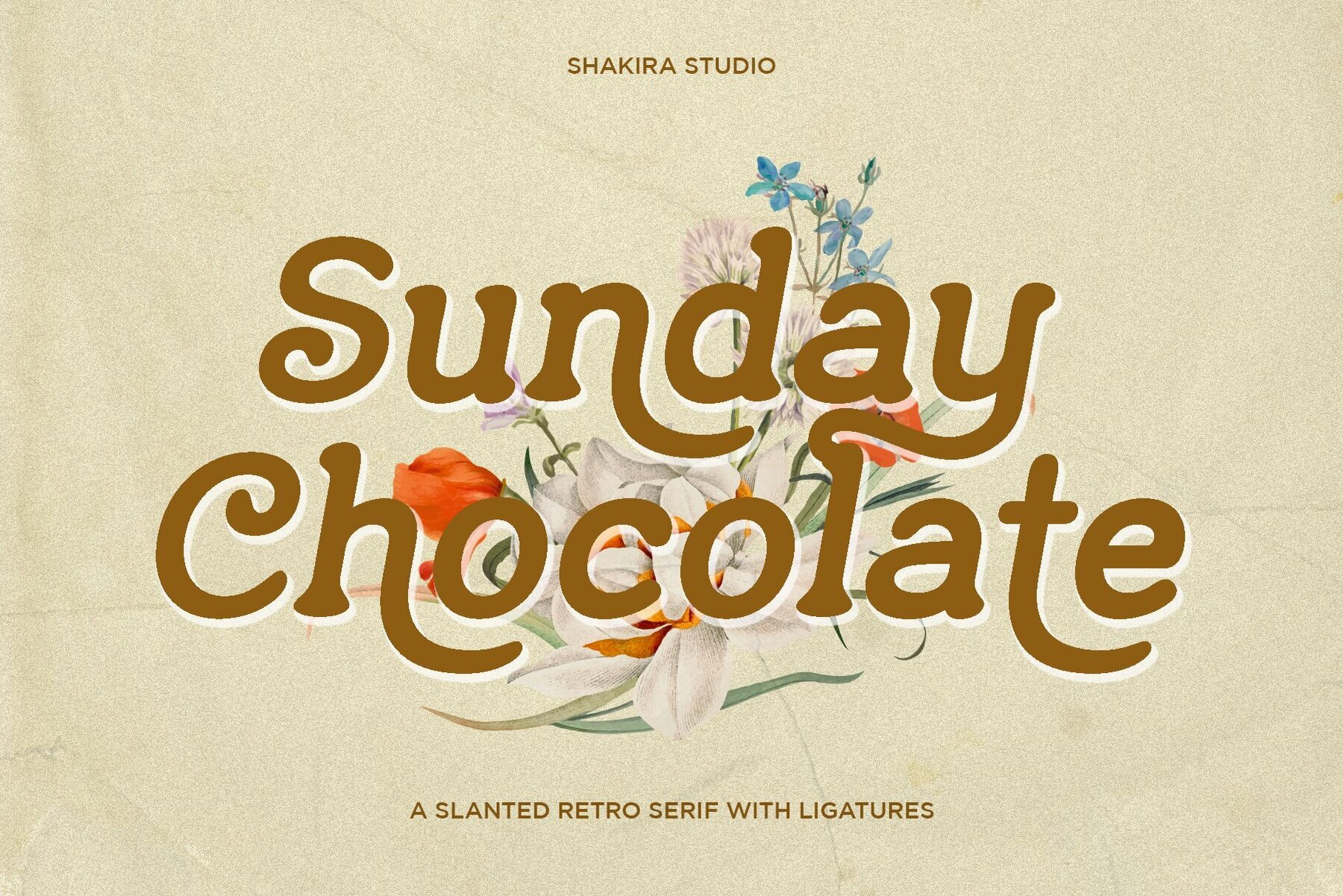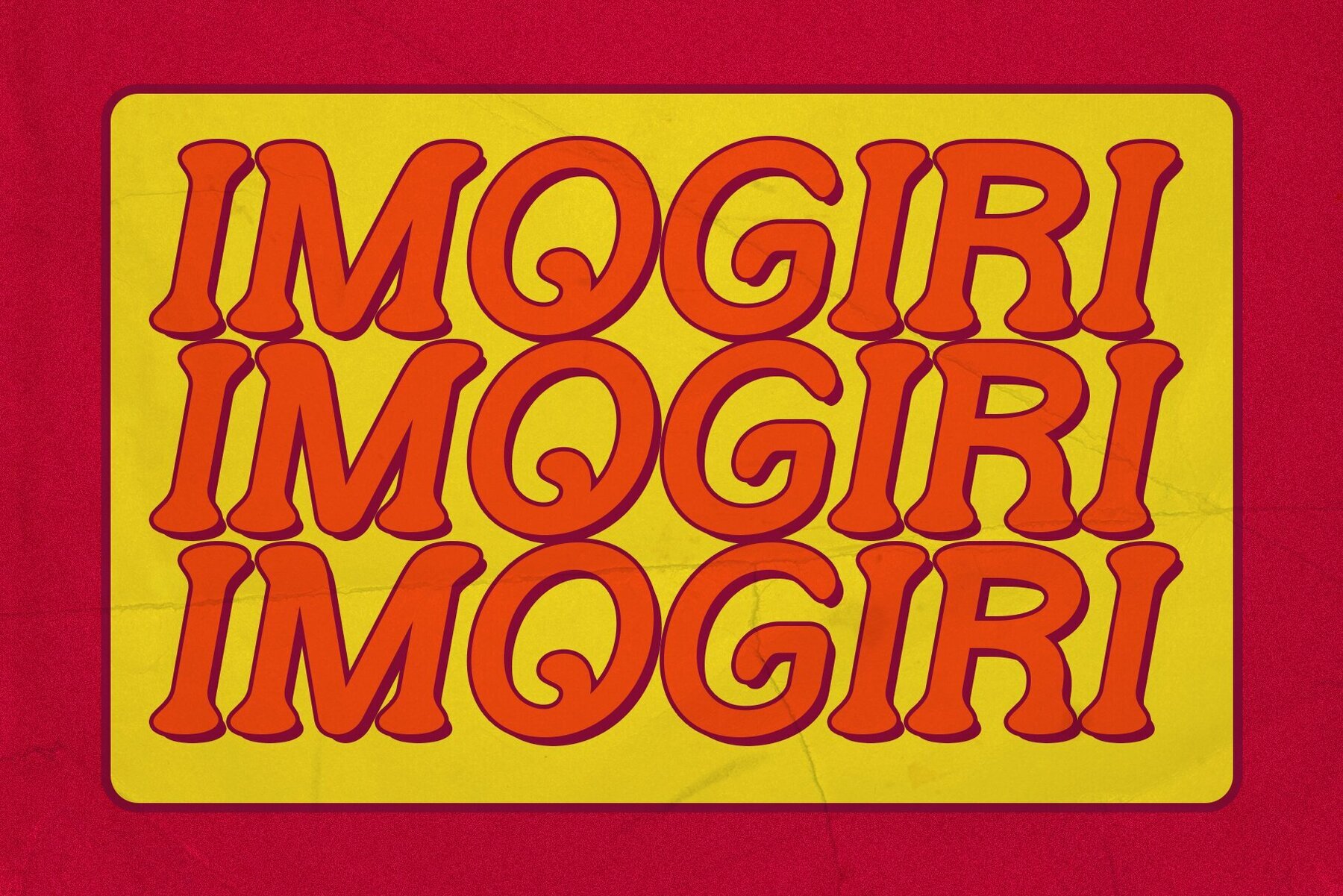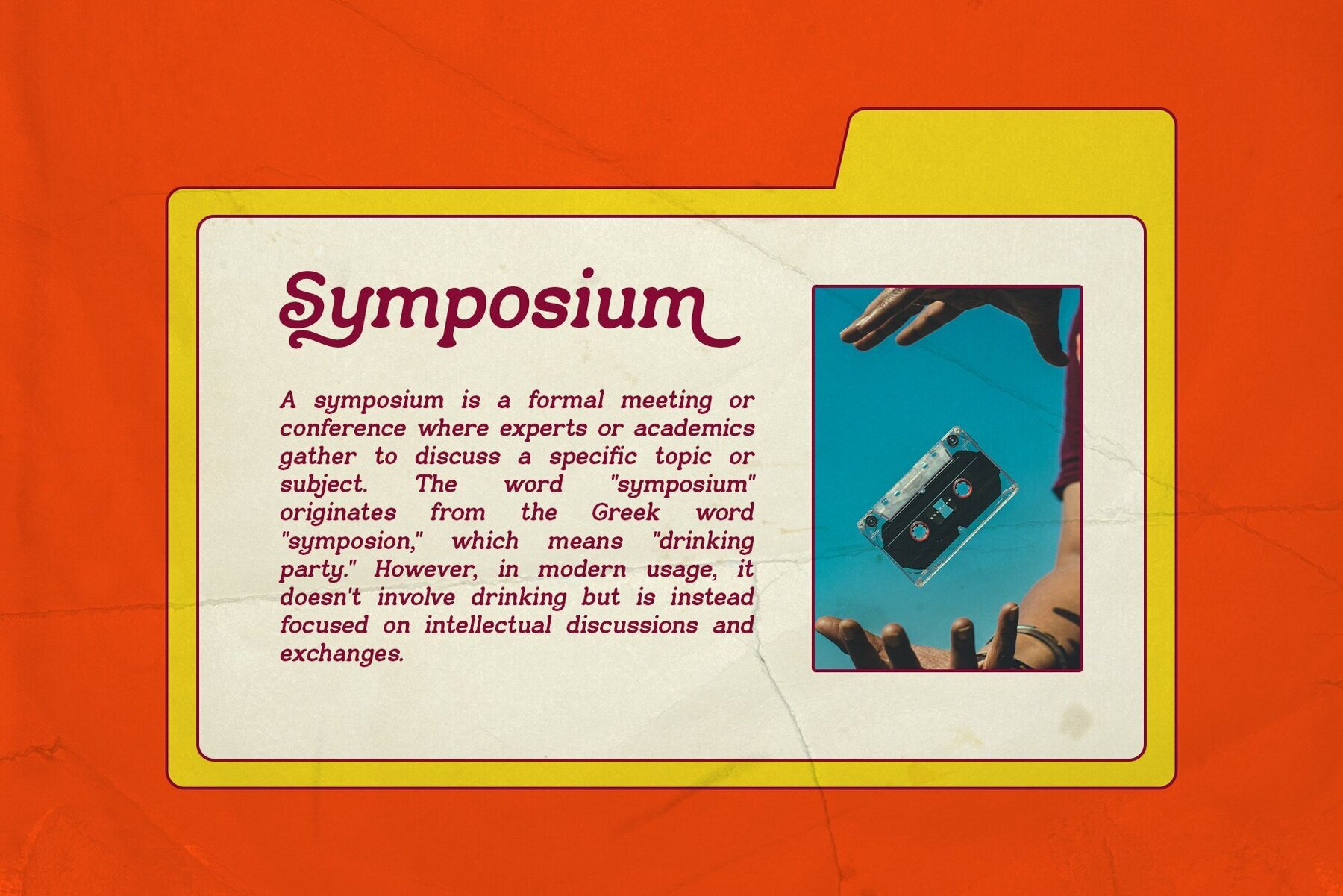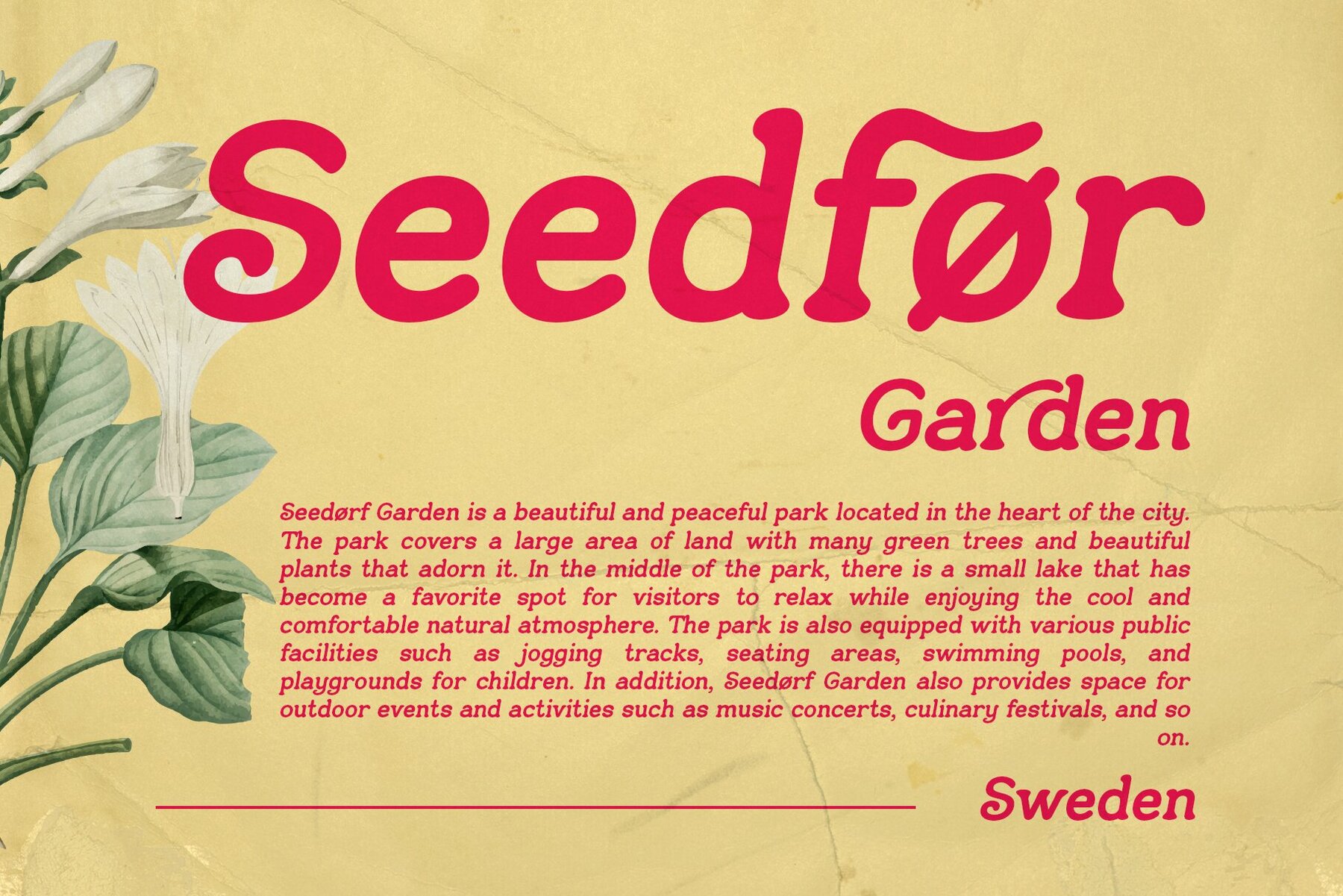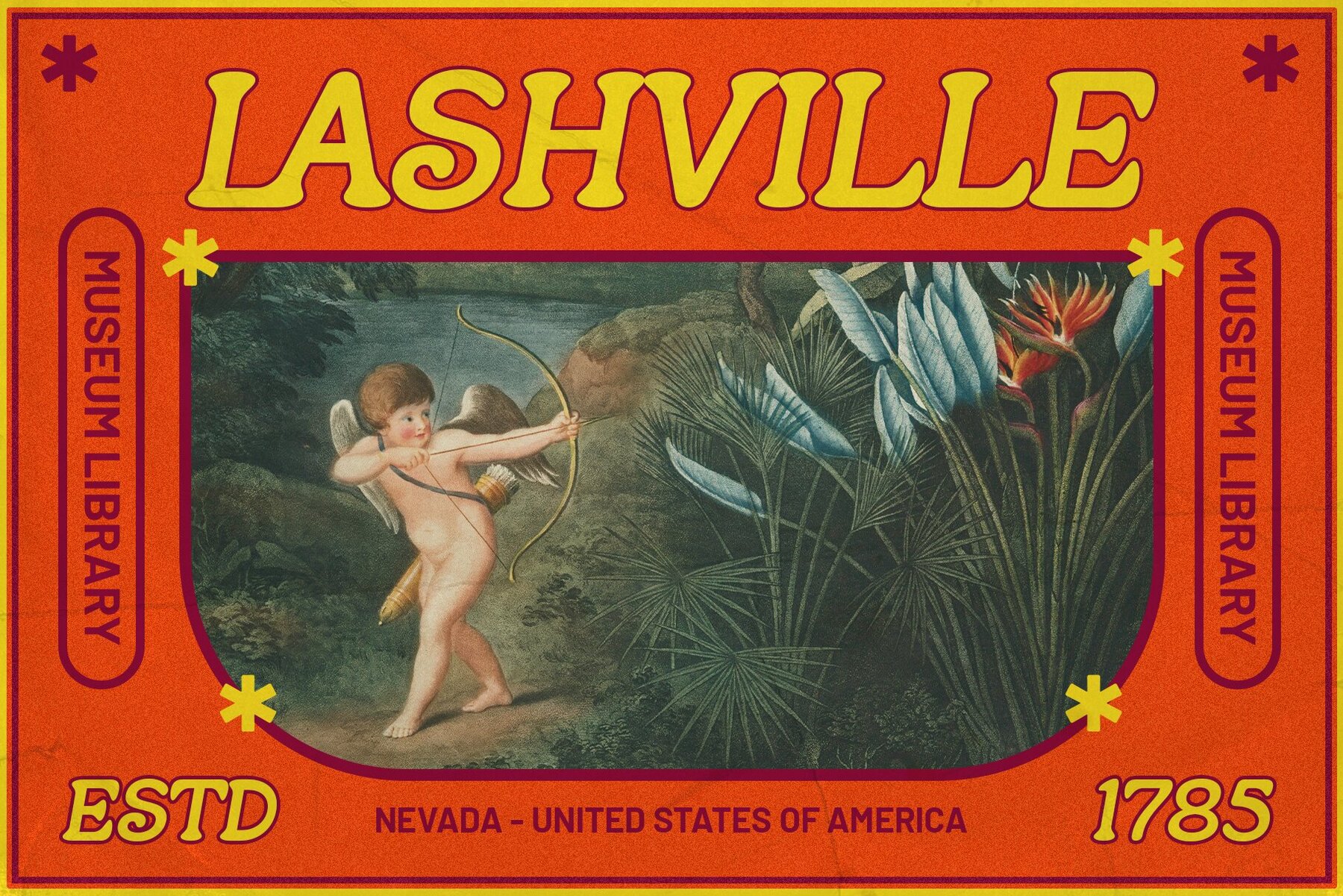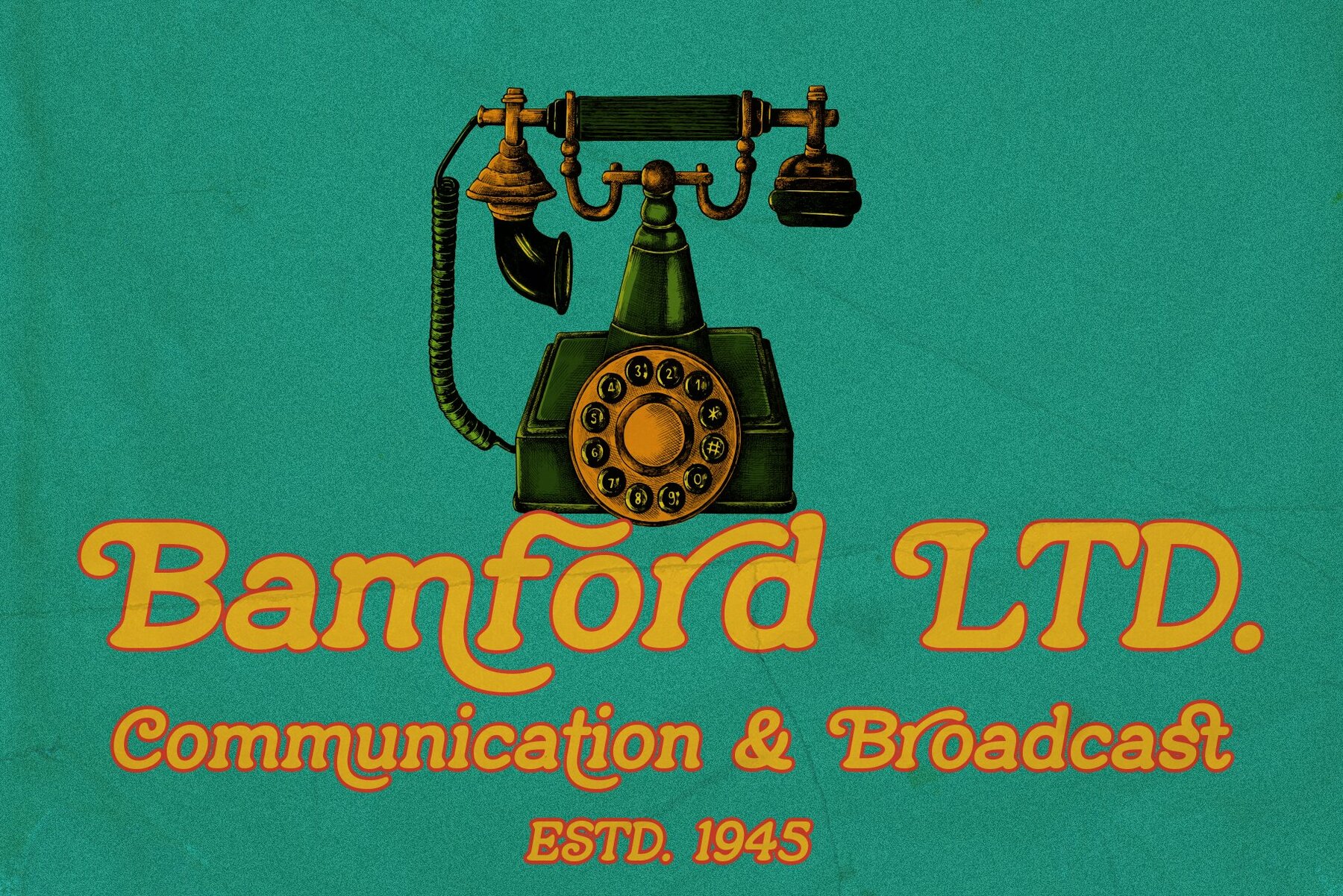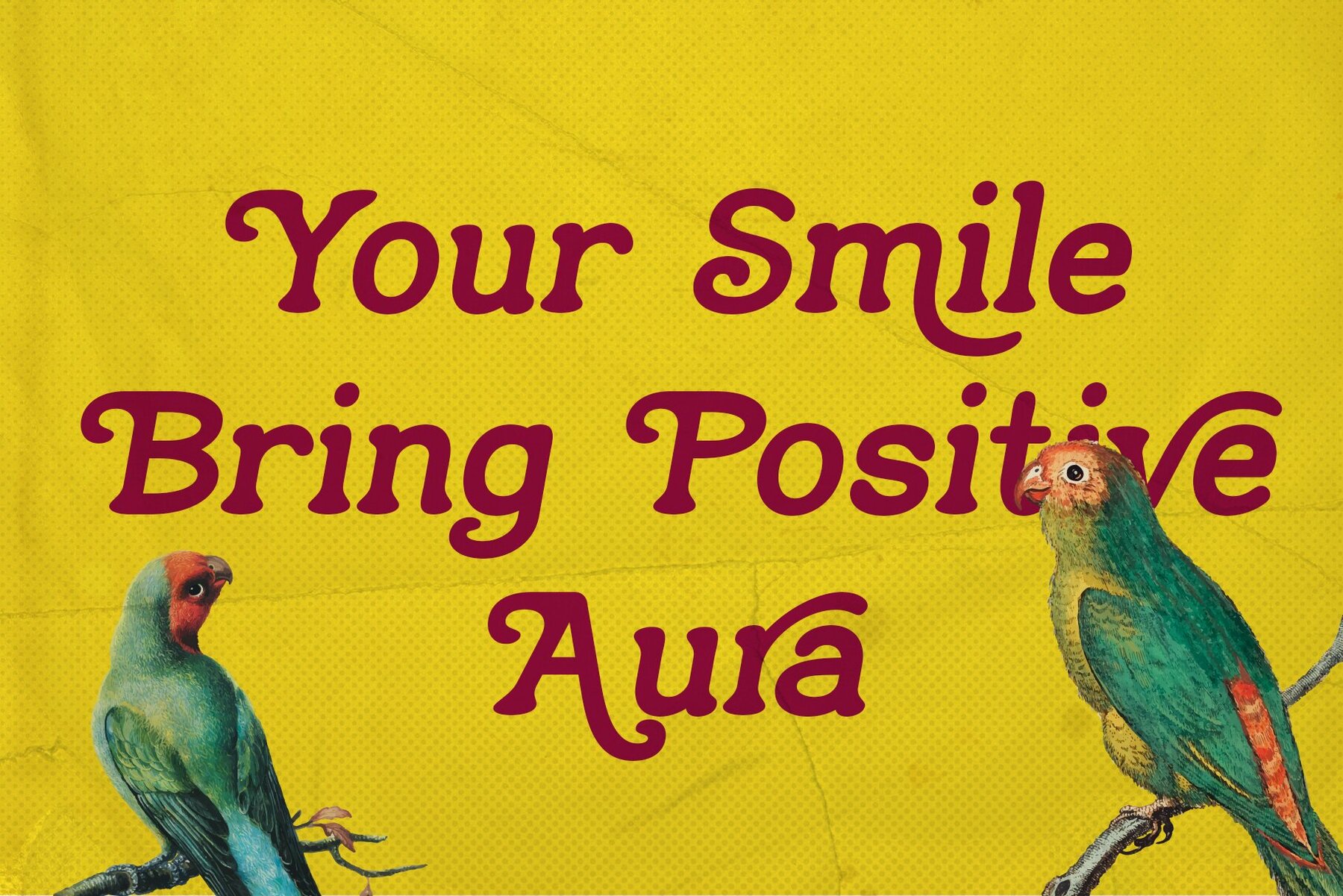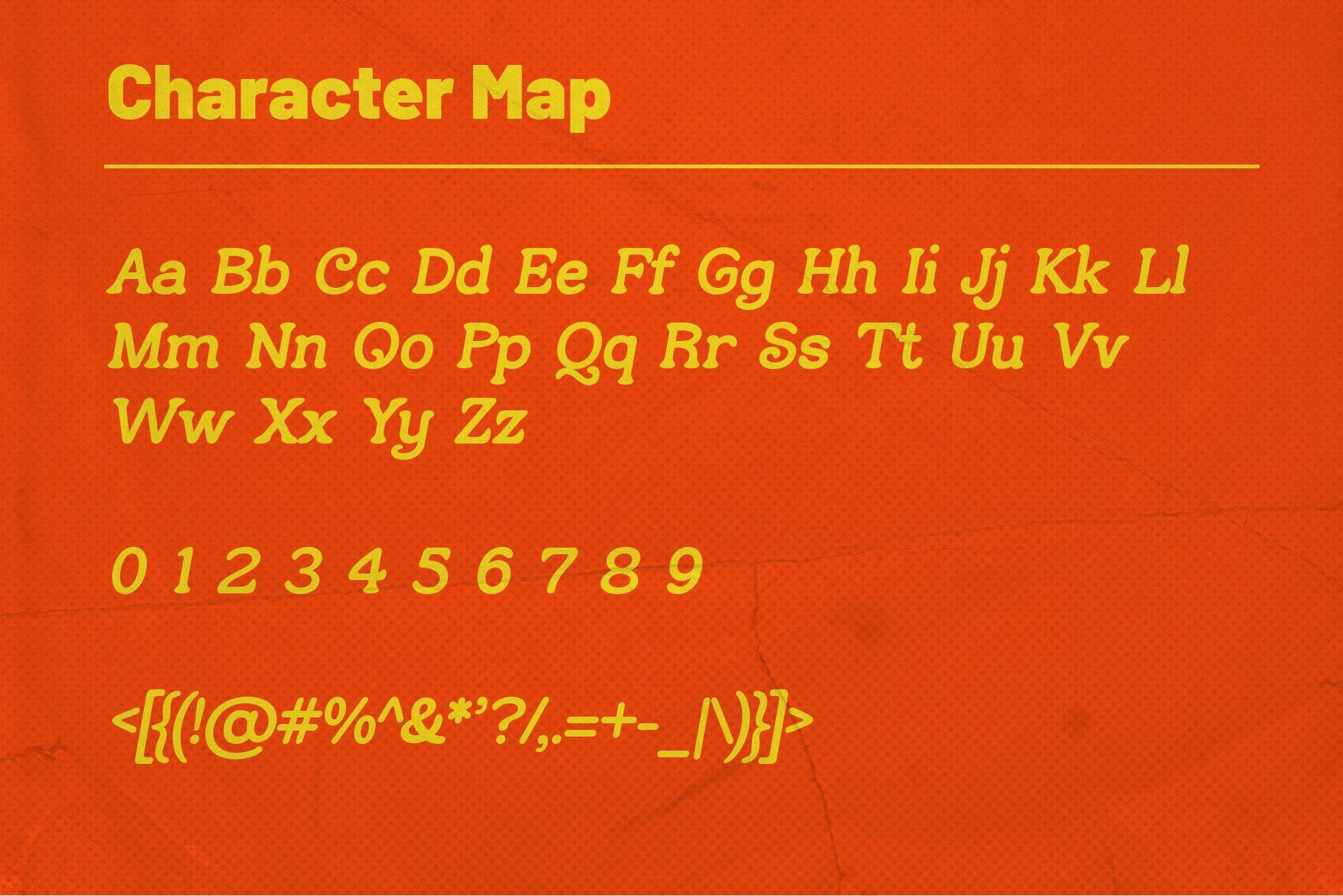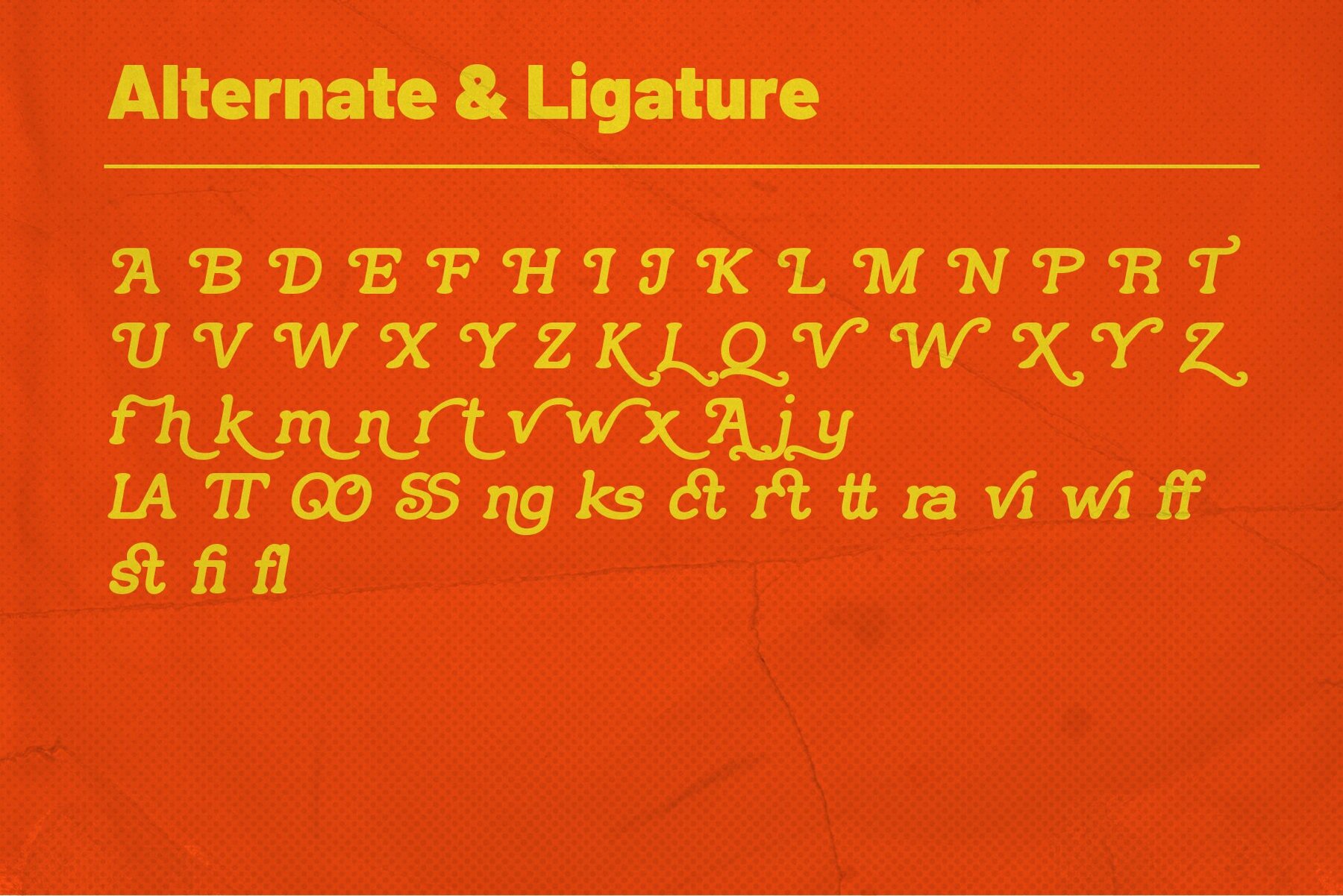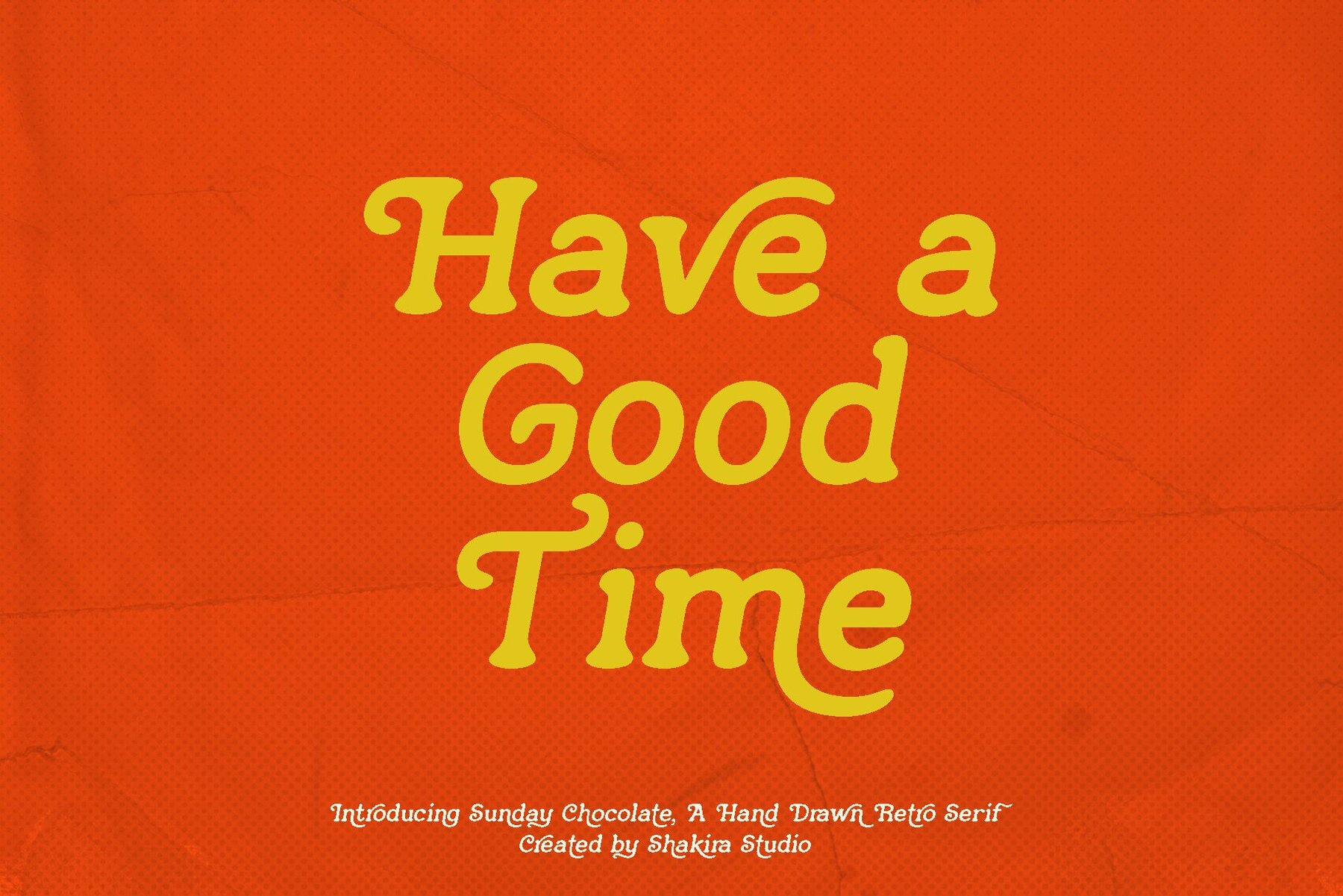
Sunday Chocolate Font
Sunday Chocolate Regular
Sunday Chocolate isn't just any serif font; it's a delightful combination of retro charm and contemporary style. With its slanted characters and vintage-inspired serifs, Sunday Chocolate captures the essence of classic typography trends while meeting modern design needs. Crafted for designers aiming to infuse their projects with a touch of nostalgia and style, Sunday Chocolate perfectly balances retro aesthetics with modern sensibilities. Whether for branding, posters, or editorial layouts, this font adds a flavorful twist that captivates any audience. Available in languages like Afrikaans, Albanian, Catalan, Croatian, Czech, Danish, Dutch, English, Estonian, Finnish, French, German, Hungarian, Icelandic, Italian, Lithuanian, Maltese, Norwegian, Polish, Portuguese, Slovenian, Spanish, Swedish, Turkish, and Zulu. Stay tuned for updates on upcoming fonts and explore more of our unique designs. Thank you for choosing Sunday Chocolate!Sunday Chocolate: Retro Slanted Serif with Modern Flair
Blending Nostalgia with Modern Design
The Sweet Features of Sunday Chocolate
Multilingual Support